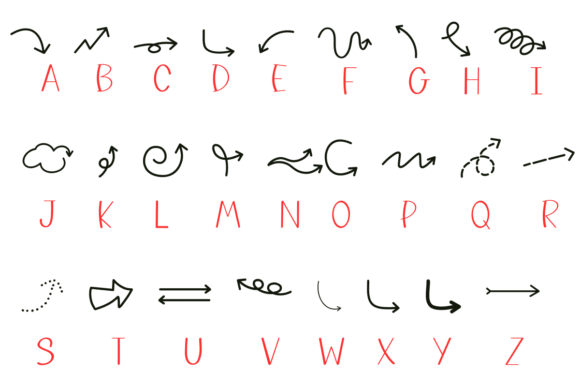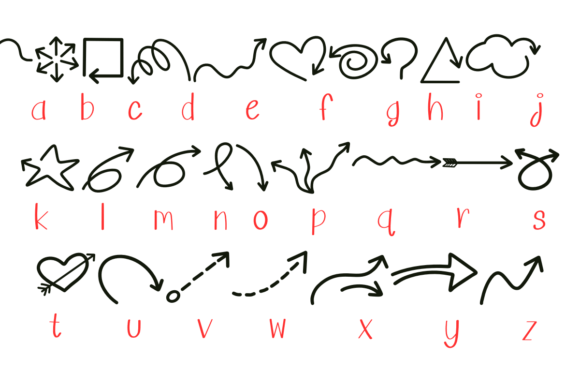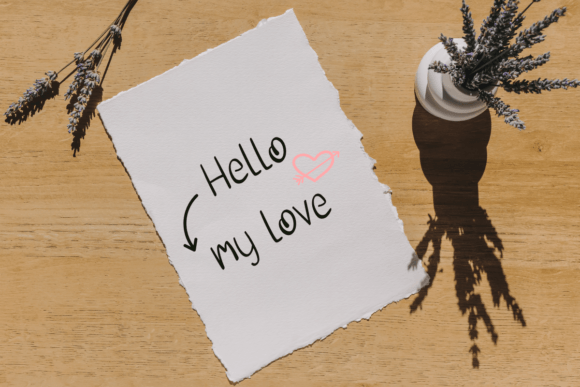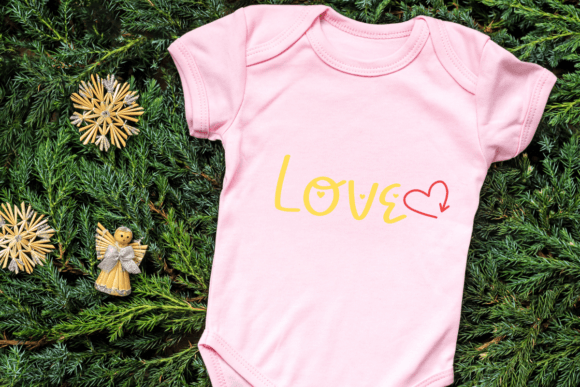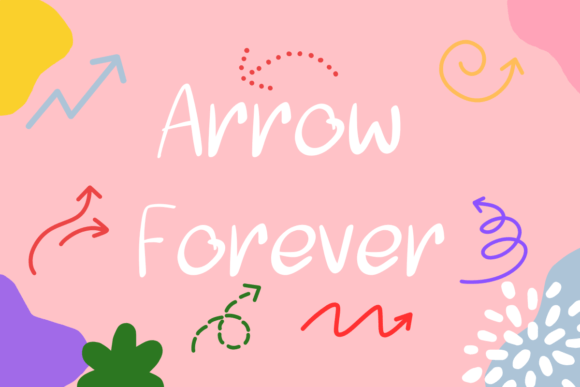
Introducing Flèche Arrow Font: Add a Touch of Whimsy to Your Designs
Are you looking for a unique and playful way to add arrows to your design projects? Look no further than Flèche Arrow Font, a delightful dingbats font featuring a charming collection of adorable arrows. Each arrow in this font is creatively designed with cute and playful elements, making it perfect for adding a touch of whimsy and fun to any design project.
What is Flèche Arrow Font?
Flèche Arrow Font is a dingbats font, which means it’s a type of font that features symbols and icons rather than traditional letters and numbers. This font is specifically designed to provide a wide range of charming arrows that can be used to add visual interest and personality to your designs. Whether you’re a designer, crafter, or DIY enthusiast, Flèche Arrow Font is a great tool to have in your toolkit.
Key Features of Flèche Arrow Font
- Charming Arrows: Flèche Arrow Font features a delightful collection of charming arrows, each one creatively designed with cute and playful elements.
- Playful and Whimsical: This font is perfect for adding a touch of whimsy and fun to any design project, making it ideal for designs that need to stand out and grab attention.
- Versatile: This font can be used for a wide range of design projects, from digital graphics to print materials, and can be scaled up or down without losing quality.
Uses for Flèche Arrow Font
Flèche Arrow Font is a versatile font that can be used for a wide range of design projects, including:
- Graphic Design: Use Flèche Arrow Font to create eye-catching graphics, such as social media posts, flyers, and brochures.
- Crafting: Add decorative arrows to your craft projects, such as scrapbooking, card making, and DIY signs.
- Web Design: Use Flèche Arrow Font to add visual interest to your website, such as in navigation menus, buttons, and icons.
- Print Design: Use Flèche Arrow Font to add decorative arrows to your print materials, such as business cards, posters, and banners.
Tips for Using Flèche Arrow Font
Here are a few tips for getting the most out of Flèche Arrow Font:
- Experiment with Different Sizes: Try scaling up or down to see how the arrows look in different sizes.
- Mix and Match: Combine Flèche Arrow Font with other fonts and design elements to create unique and interesting designs.
- Use in Combination with Other Design Elements: Use Flèche Arrow Font in combination with other design elements, such as images, shapes, and textures, to add depth and interest to your designs.
Flèche Arrow Font is a delightful dingbats font that features a charming collection of adorable arrows. With its playful and whimsical design, this font is perfect for adding a touch of fun and personality to any design project. Whether you’re a designer, crafter, or DIY enthusiast, Flèche Arrow Font is a great tool to have in your toolkit. So why not give it a try and see how you can use it to add a touch of whimsy to your designs?